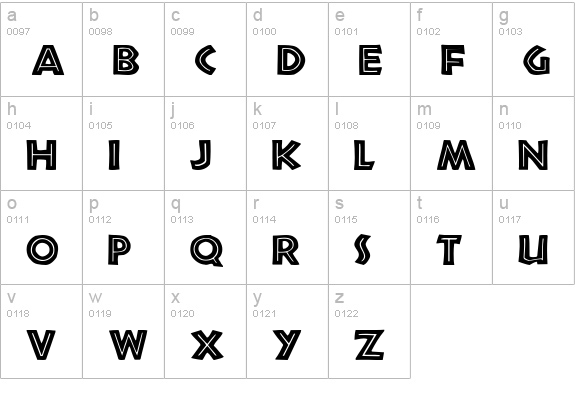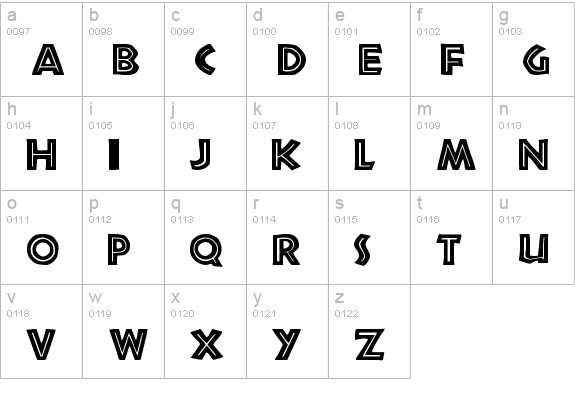
26 Font Details
Introducing the elegant and versatile 26 font, a modern typeface that effortlessly combines sophistication with readability. With its clean lines and stylish curves, 26 font is perfect for a wide range of design projects, from branding to editorial work. This beautiful font is available for free download exclusively at FontsMarket.com, where you can access a vast collection of high-quality fonts to elevate your creative projects. Don't miss out on the opportunity to enhance your designs with the timeless charm of 26 font, now freely available for your design needs.